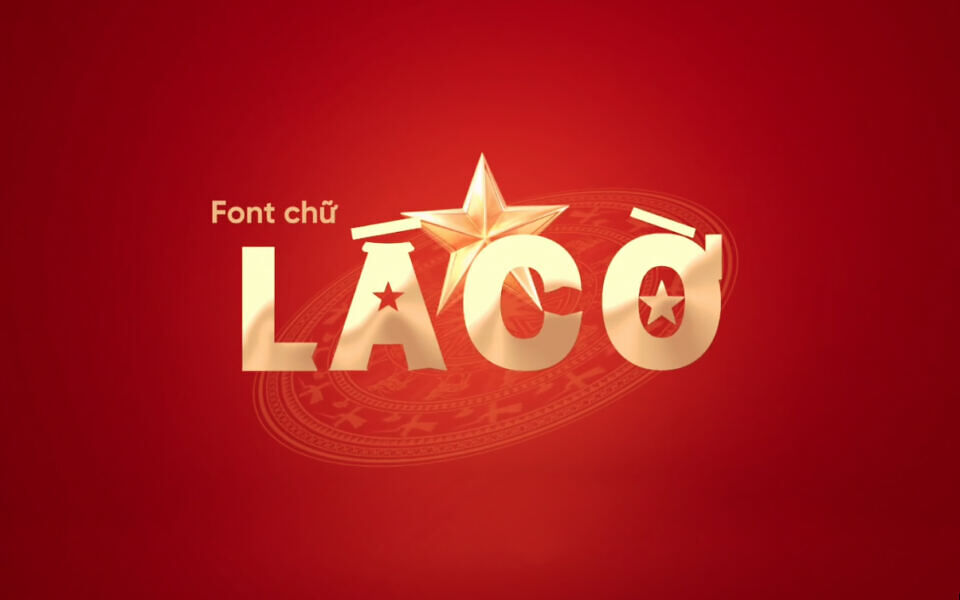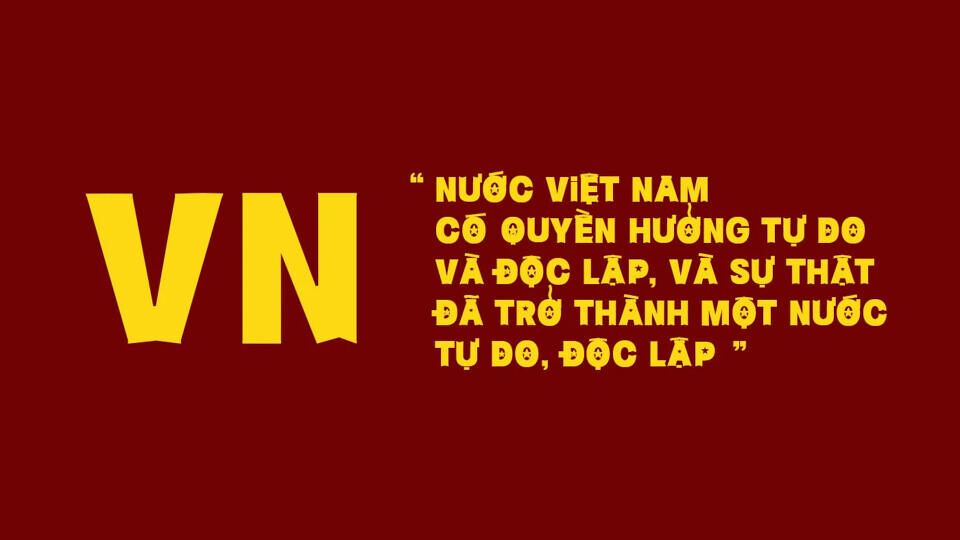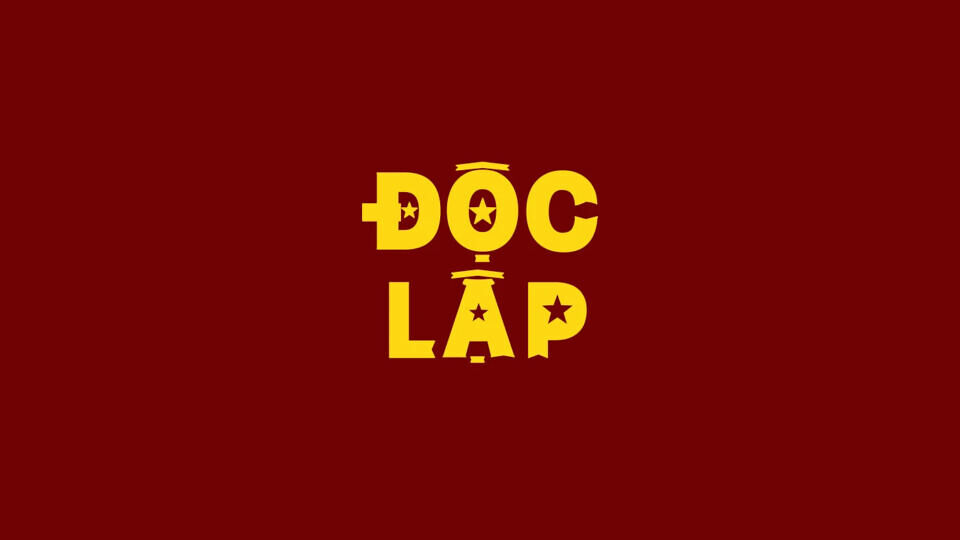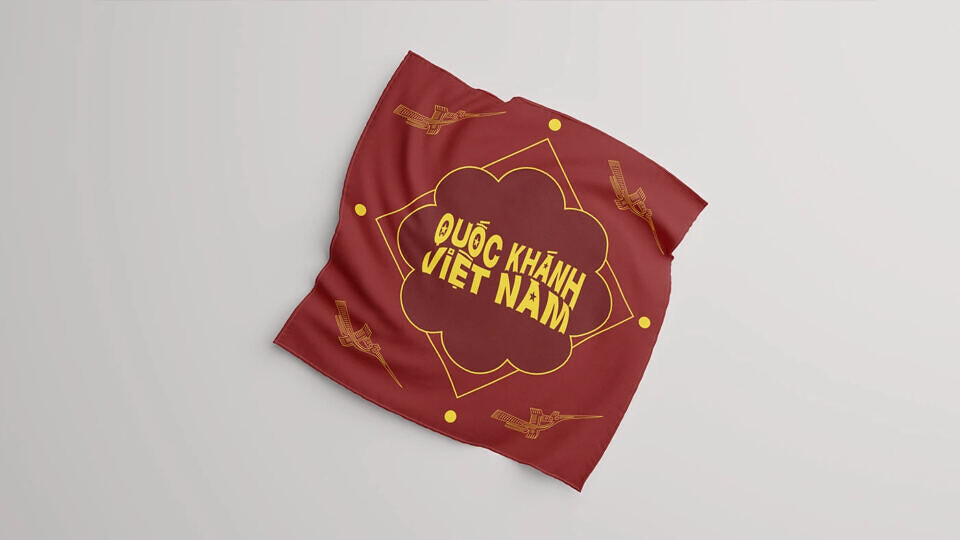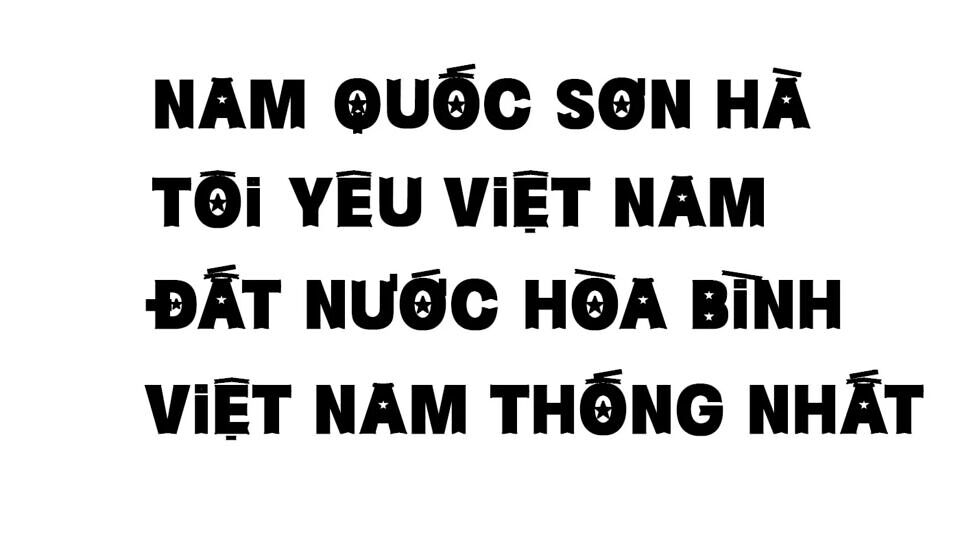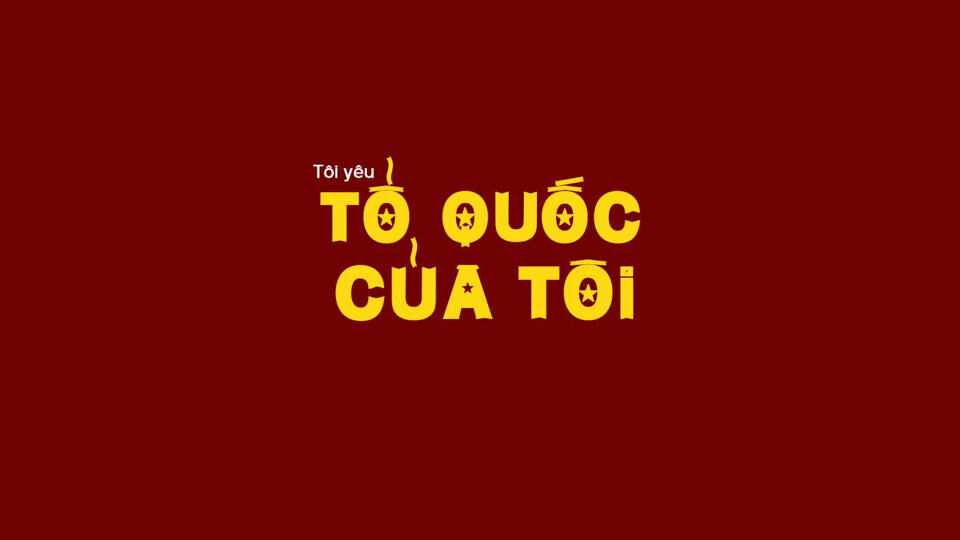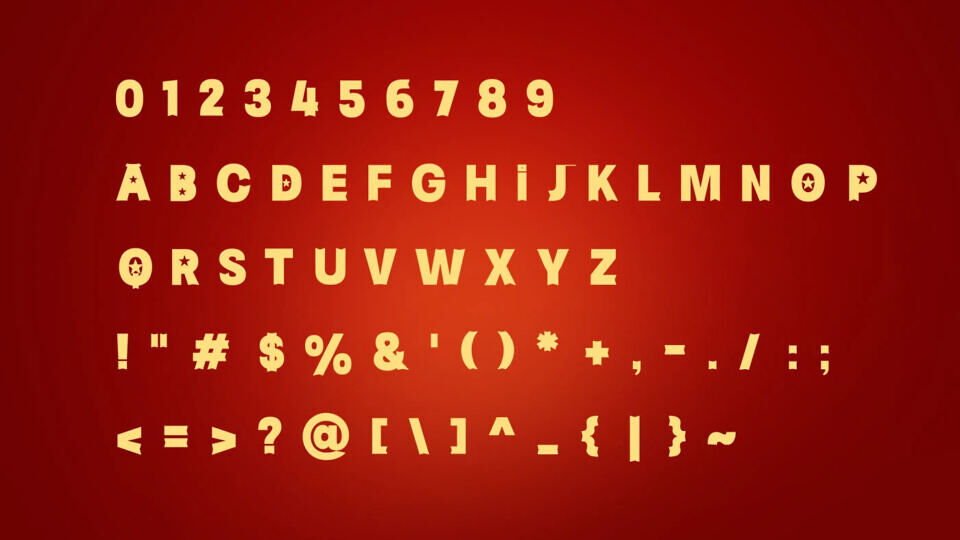
The La Cô typeface is inspired by Vietnam’s traditional swallowtail flag, featuring a golden star symbolizing the unity of the Vietnamese people—peasants, workers, traders, and soldiers—united to build and defend the nation. It embodies solidarity, national pride, and vitality, with a free-flowing, graceful rhythm refined for modern design aesthetics.
This approachable style leaves a strong impression in cultural and creative works. The font reflects Vietnam’s spirit, harmonizing traditional values with contemporary design, making it a popular choice for artistic expression.